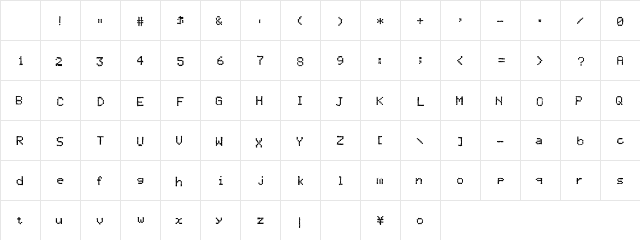
Complete TwistyPixel Regular glyph index. Displaying only characters natively supported by TwistyPixel Regular font.
TwistyPixel is rooted in pixel-grid construction, making it a natural fit for game UI, retro computing aesthetics, and digital nostalgia projects.